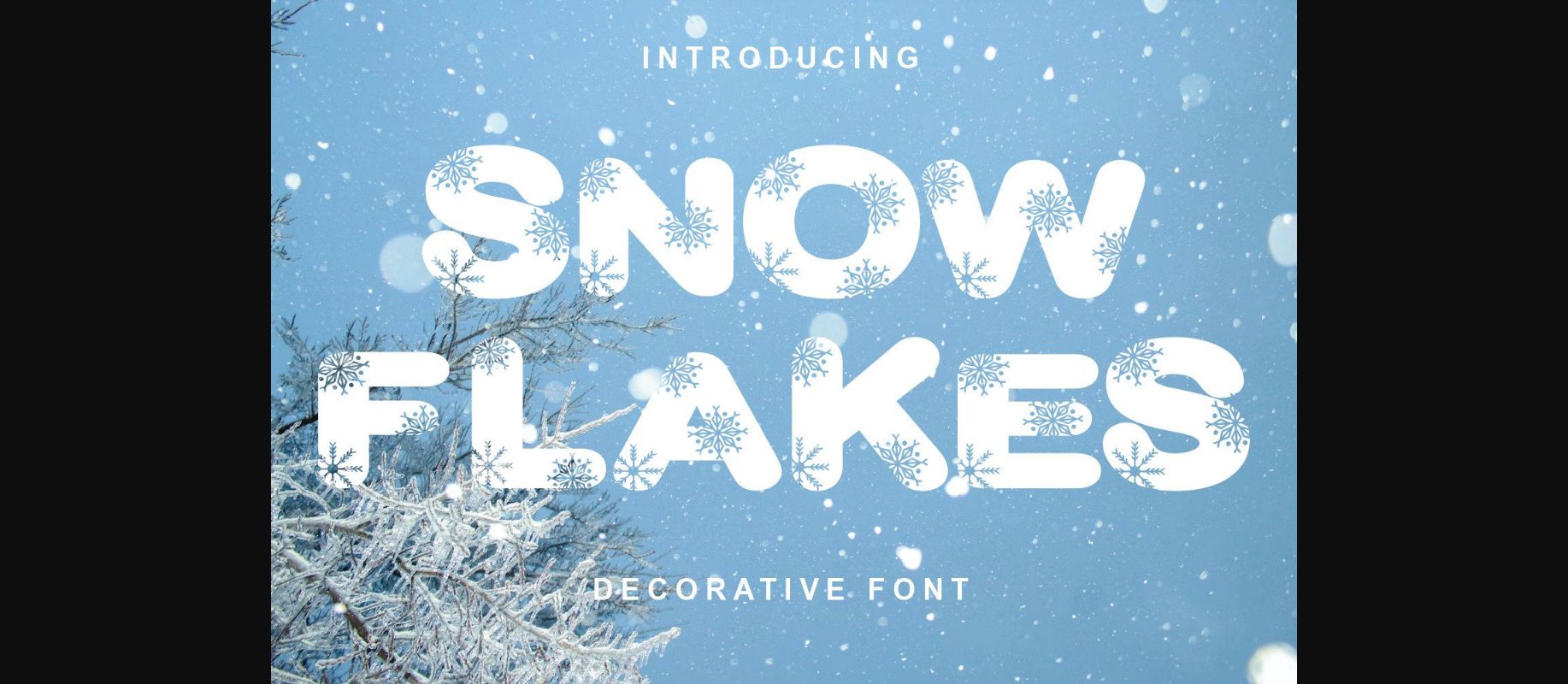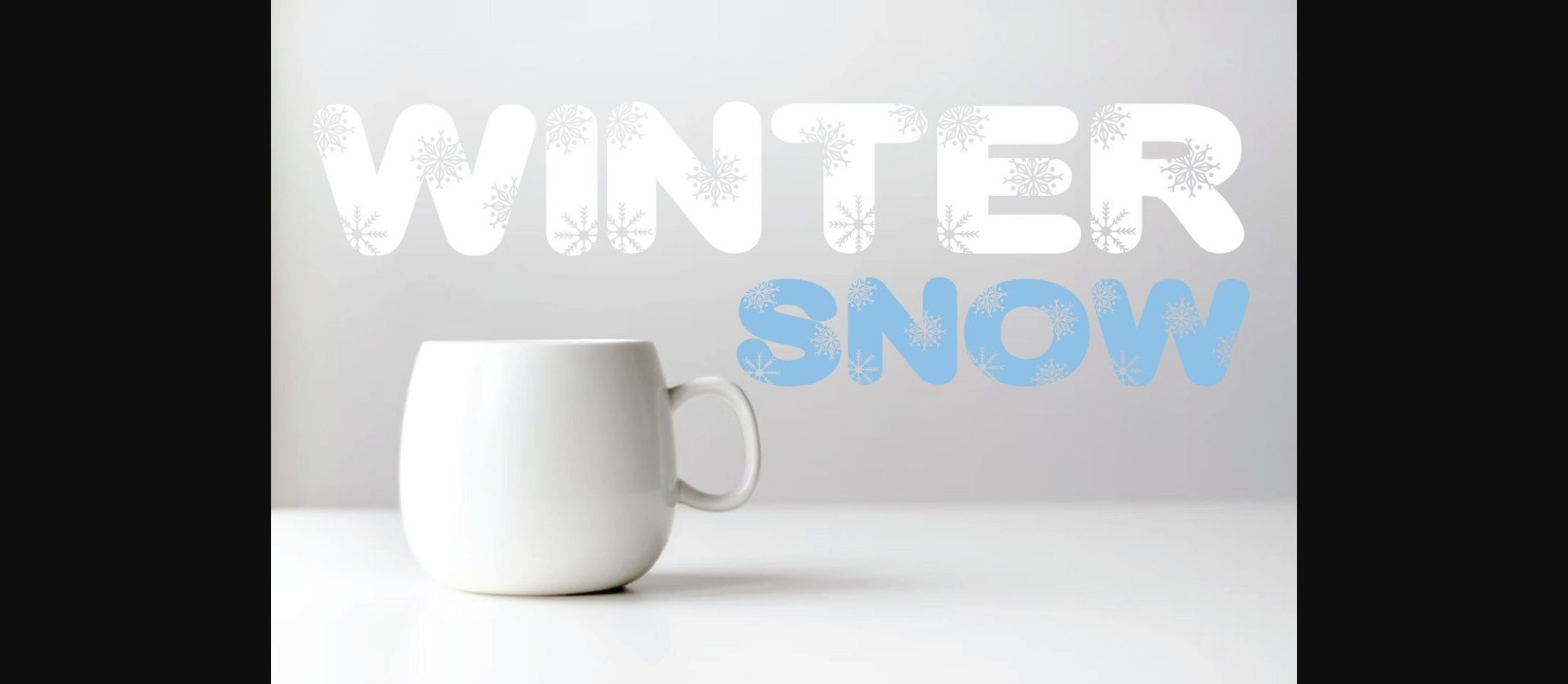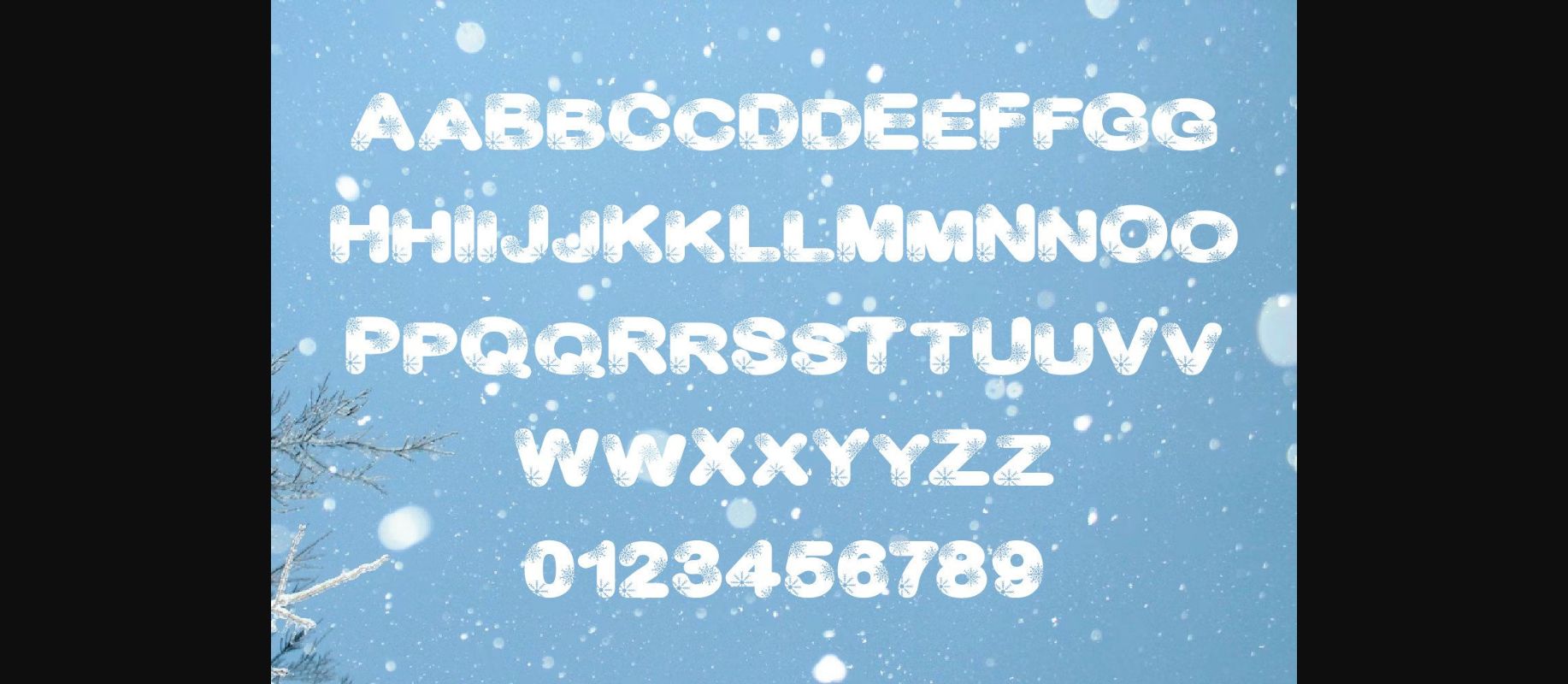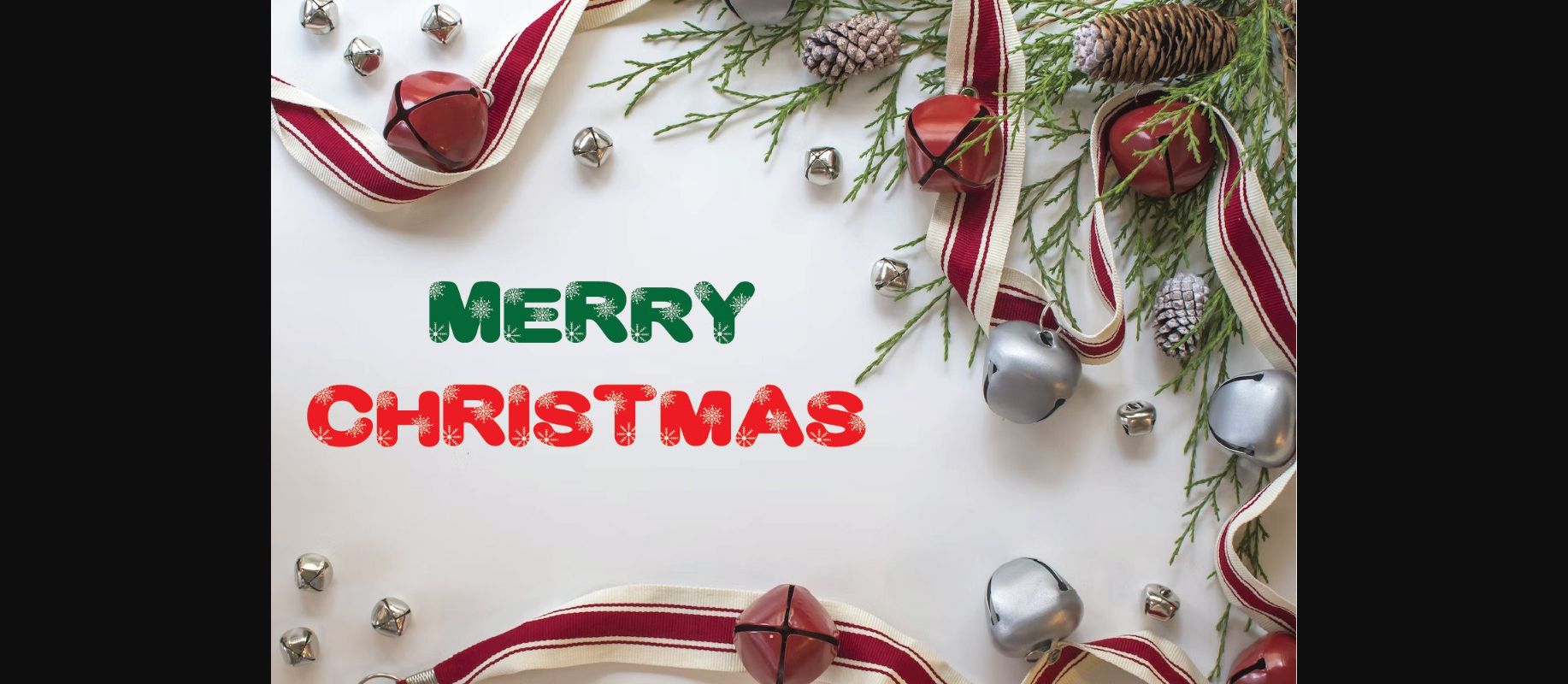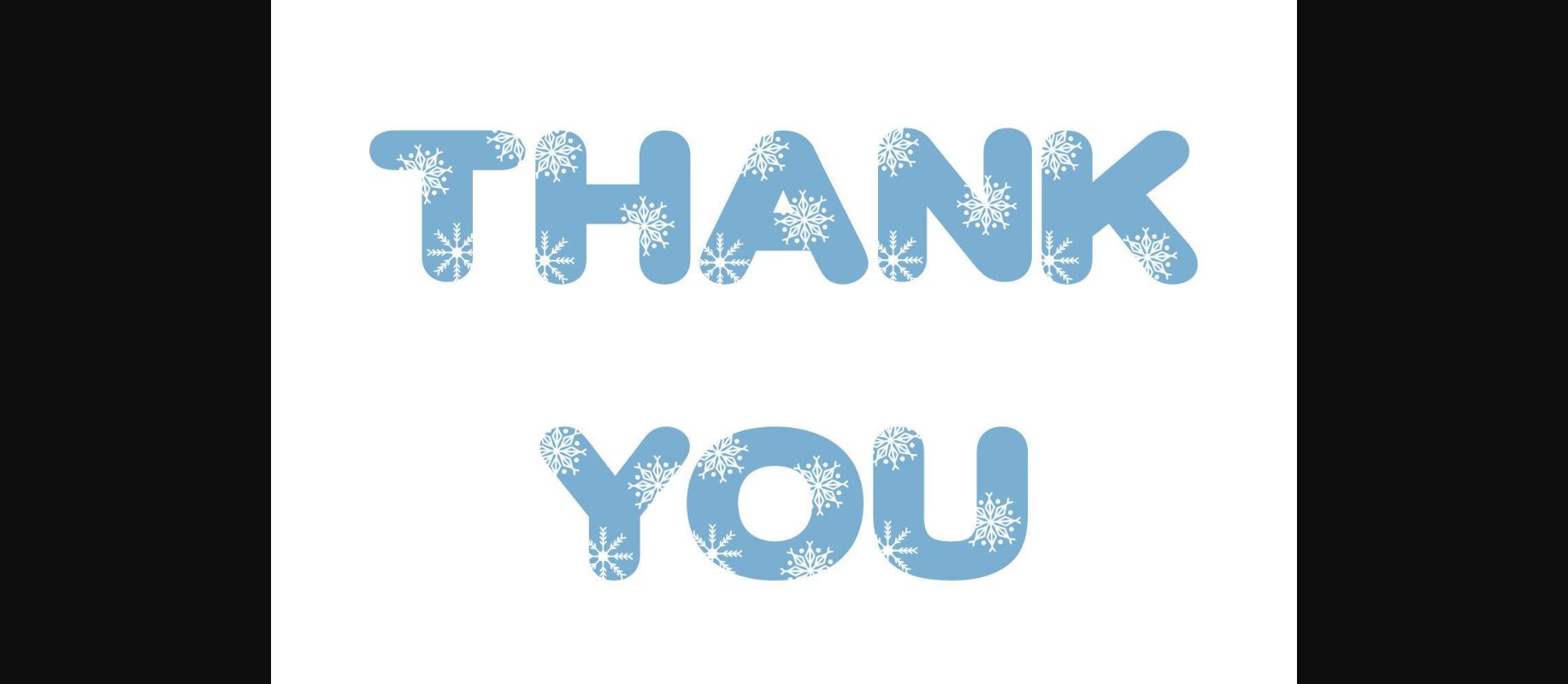
SnowFlake is a cool and unique decorative font featuring characters decorated with snowflakes. It can be used for various design ideas, particularly those related to the Christmas holiday.